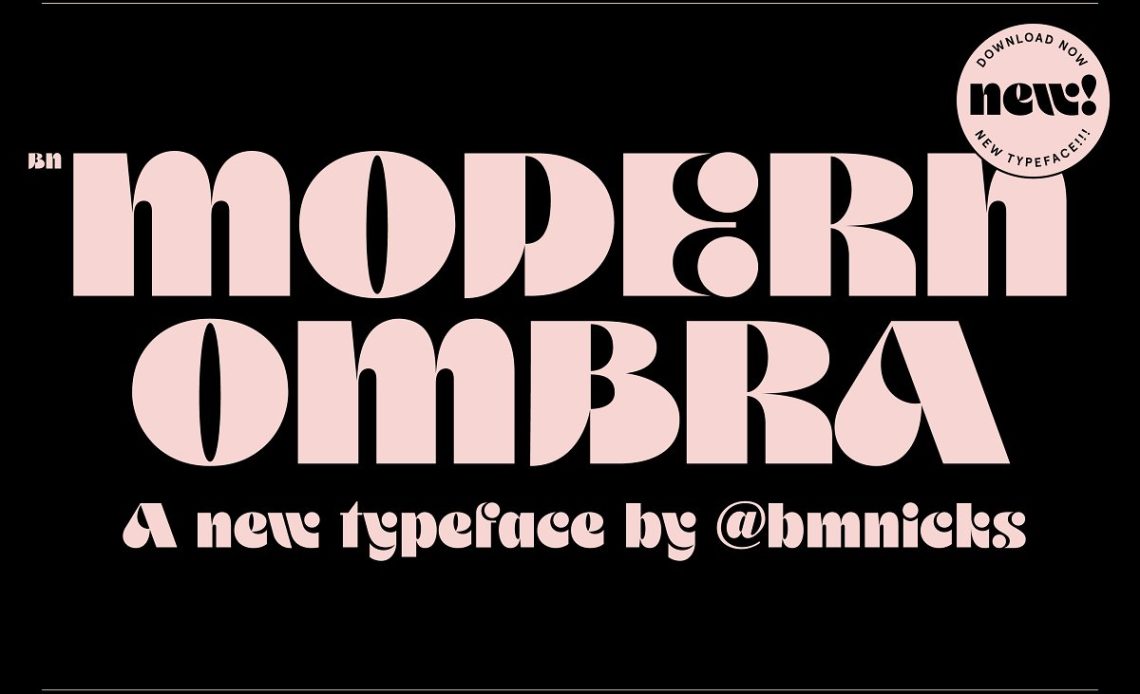
Introducing the newest addition to your font collection: BN Modern Ombra, a quirky display font that will elevate your designs to the next level! Created by Brandon Nickerson, this sans-serif font family is a modern take on the classic “Motter Ombra” font, originally designed in 1973 by Othmar Motter and digitized by Linotype.
BN Modern Ombra is the perfect font for any design that needs a touch of personality. Whether you're creating a logo, designing a layout, or crafting headlines, this font is versatile enough to handle any task. The simplified and geometric circles used in the lettering make it unique and eye-catching.
The inspiration for BN Modern Ombra came from a logotype design for a client. The custom lettering resulted in a simplified look that sparked the idea to recreate the entire font. Brandon Nickerson completely remodeled certain letters and used geometric circles to give the font a modern and fresh feel.